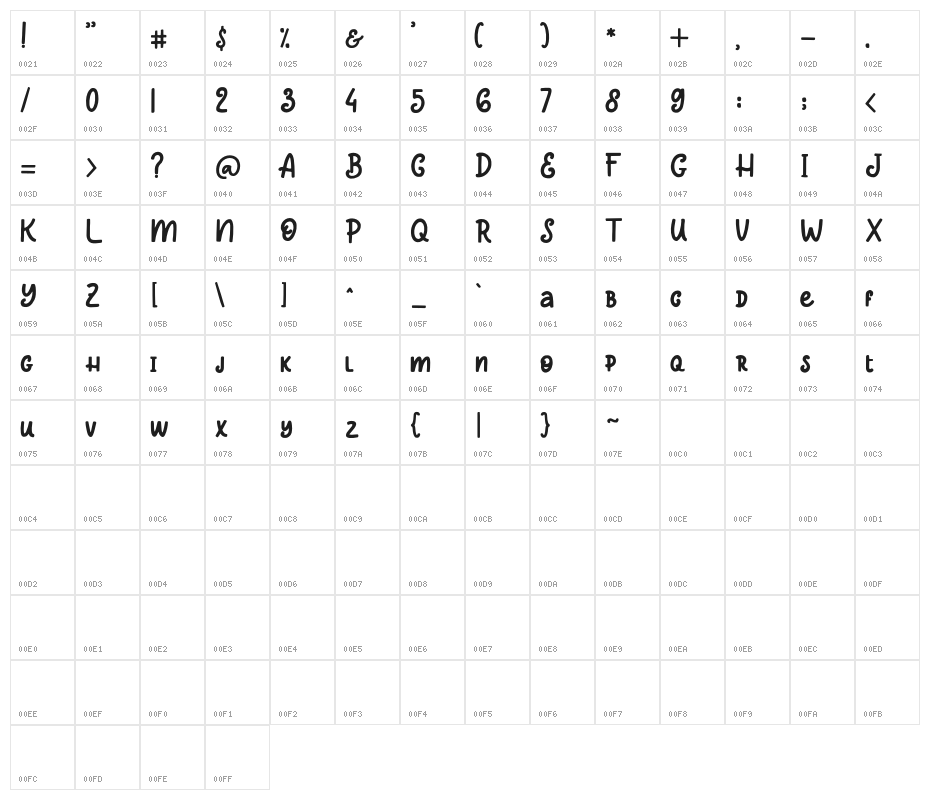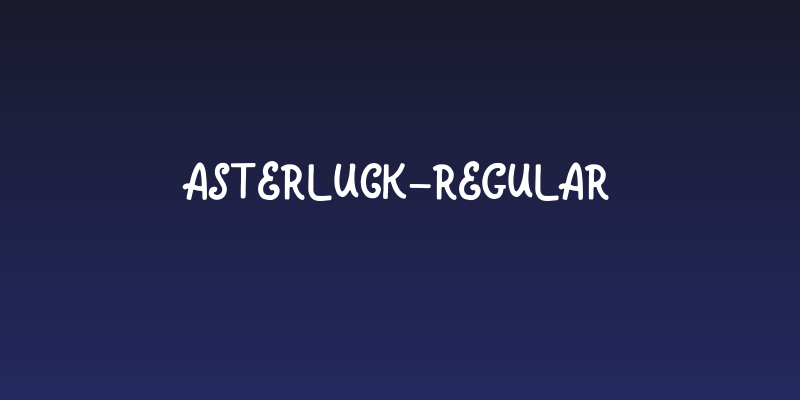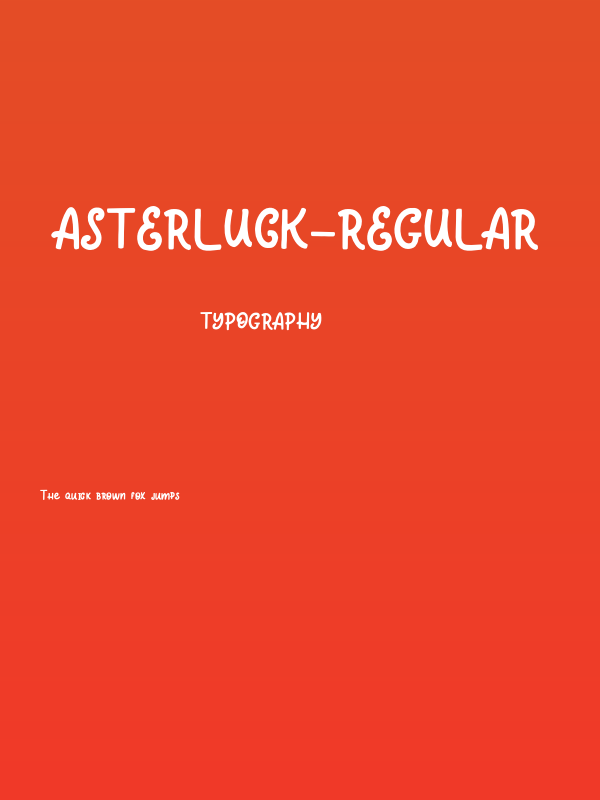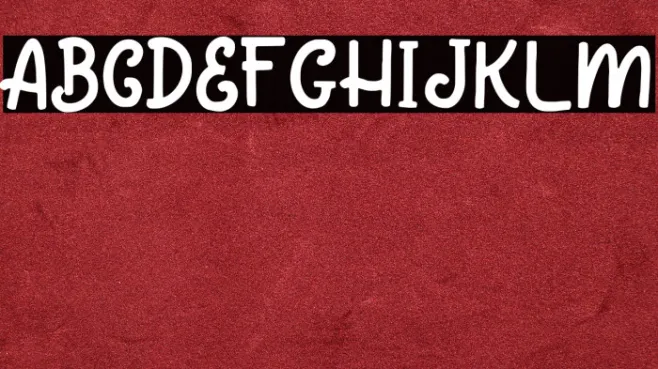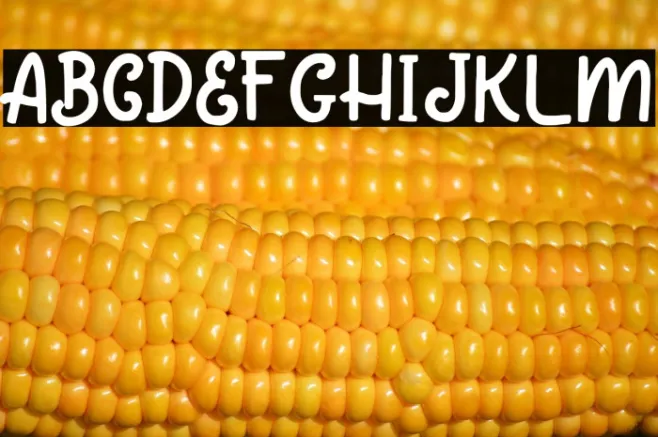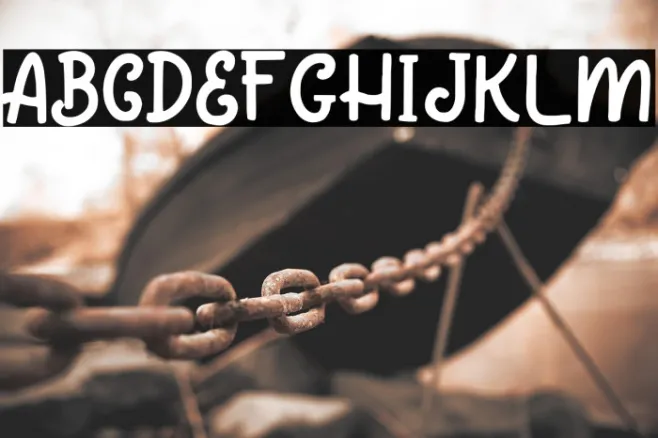
Asterluck-Regular Font
This font features a playful and whimsical design with rounded, bold characters that convey a sense of fun and creativity. The strokes are thick and consistent, giving it a strong presence on the page. The characters have a slight slant, adding to the dynamic feel of the font. It includes a full set of uppercase and lowercase letters, numbers, and a variety of special characters. The overall appearance is friendly and approachable, making it suitable for projects that aim to capture attention and convey a lighthearted tone.
| Proposed Projects | Ideal for children's books, playful branding, greeting cards, and creative posters. |